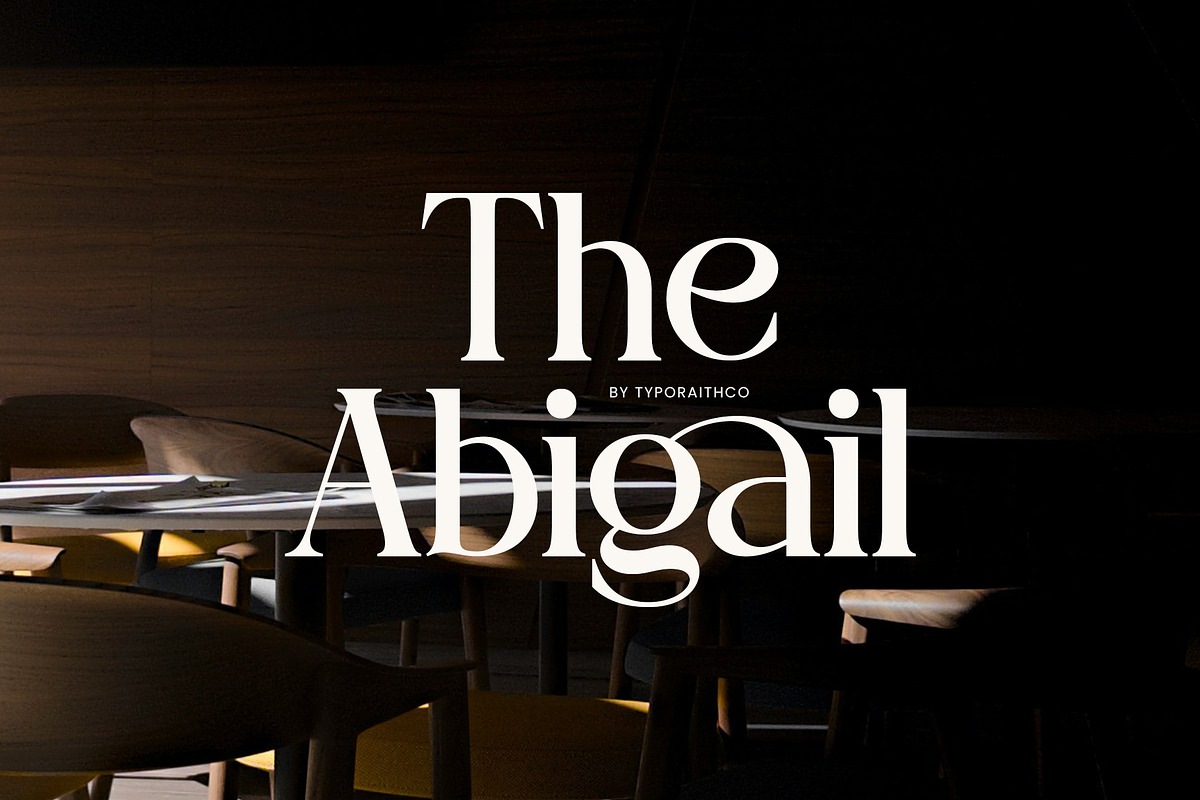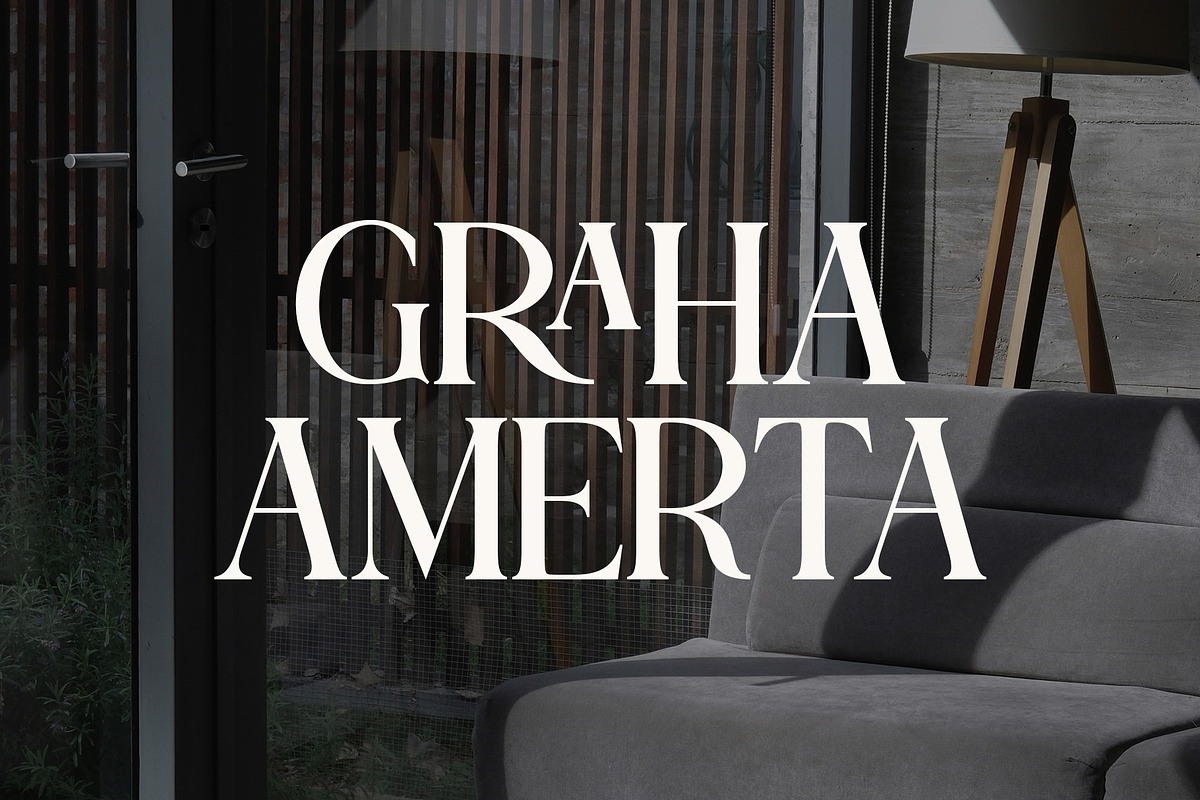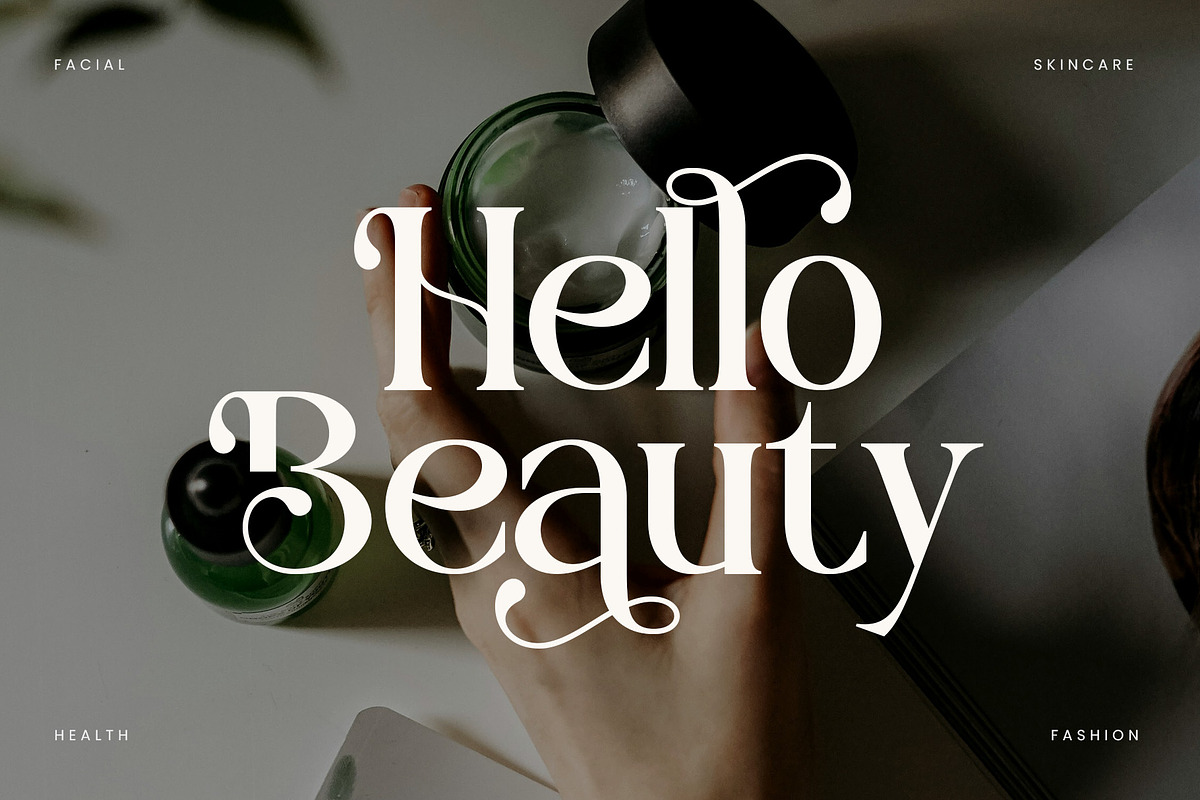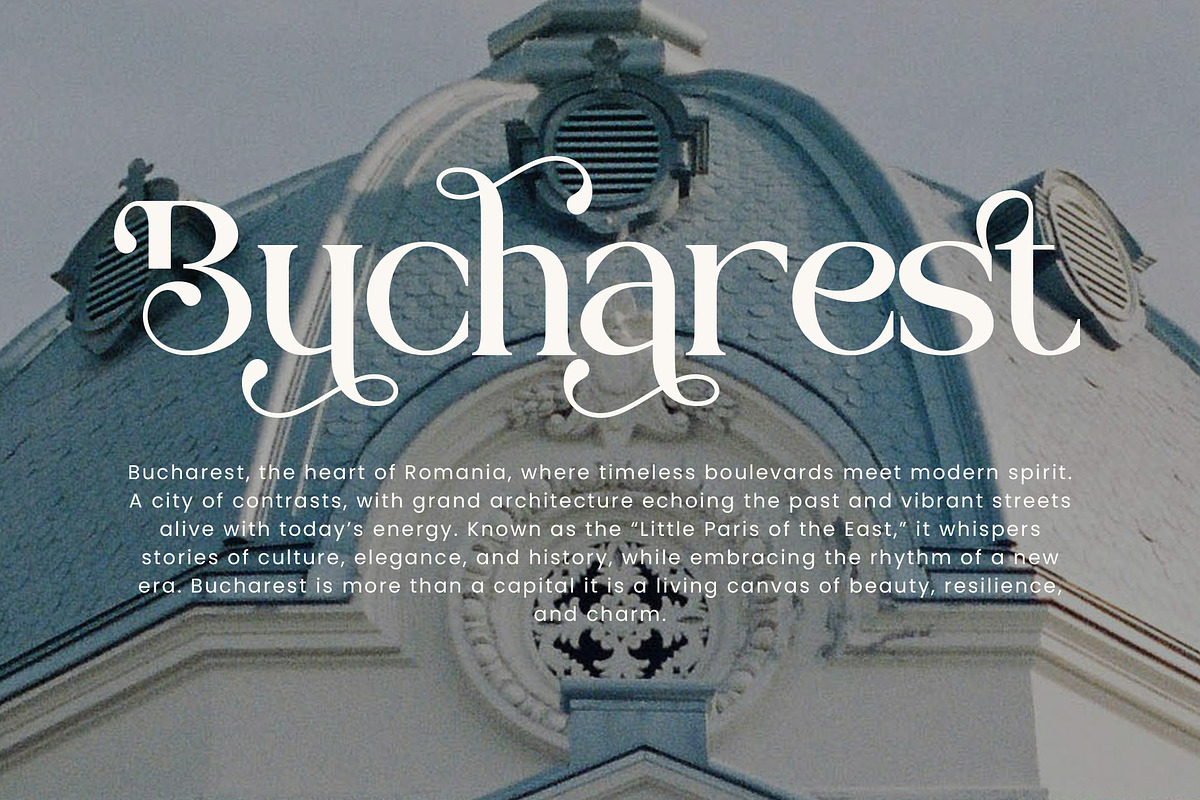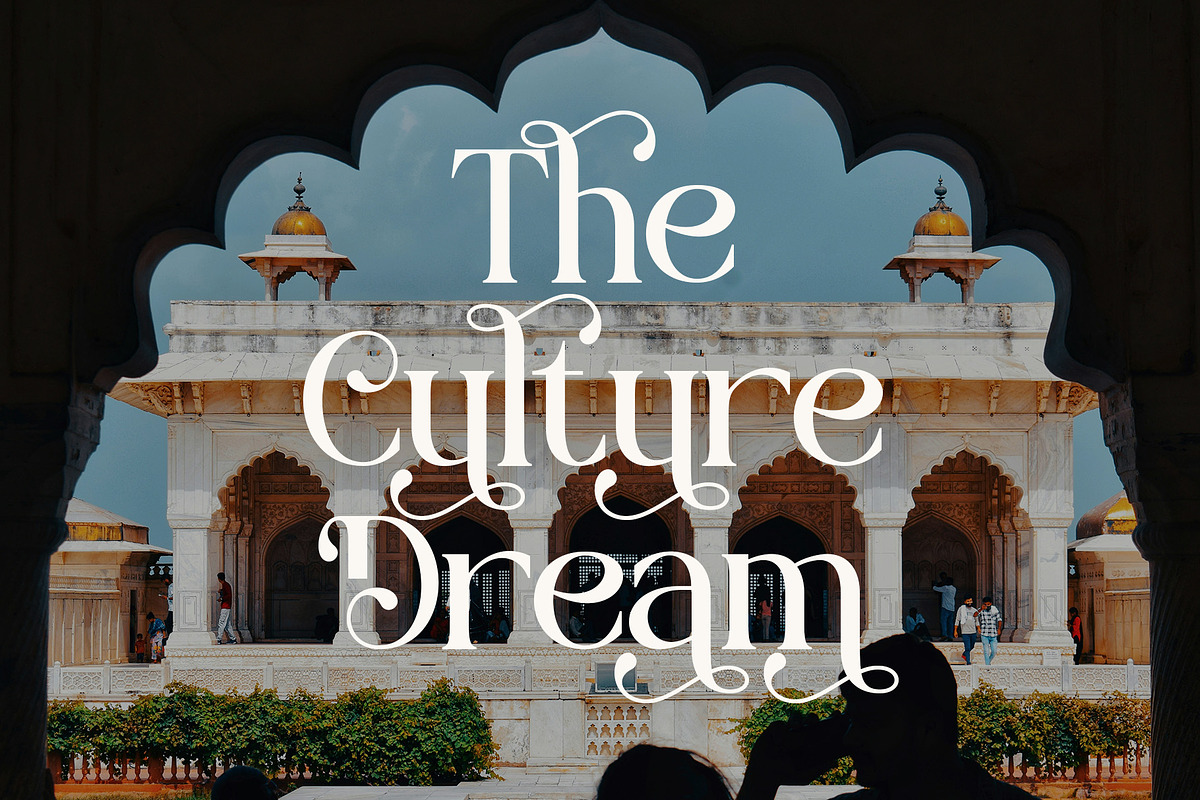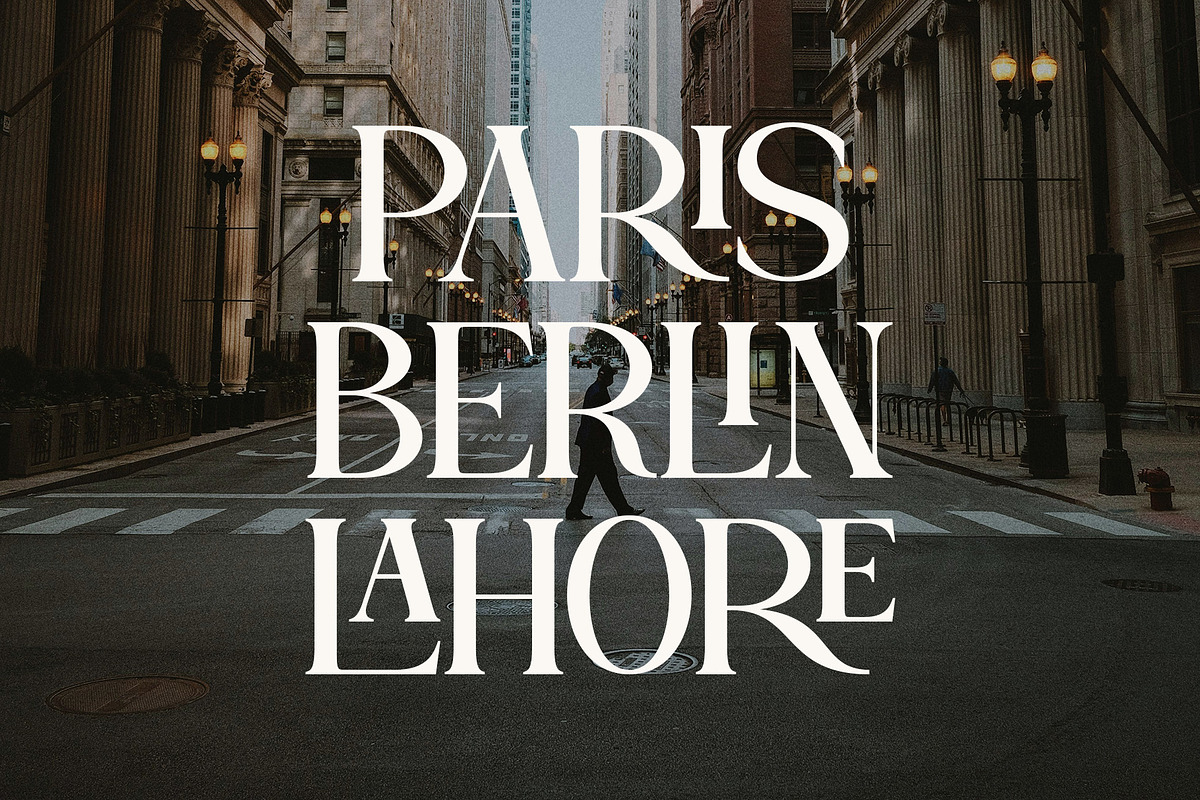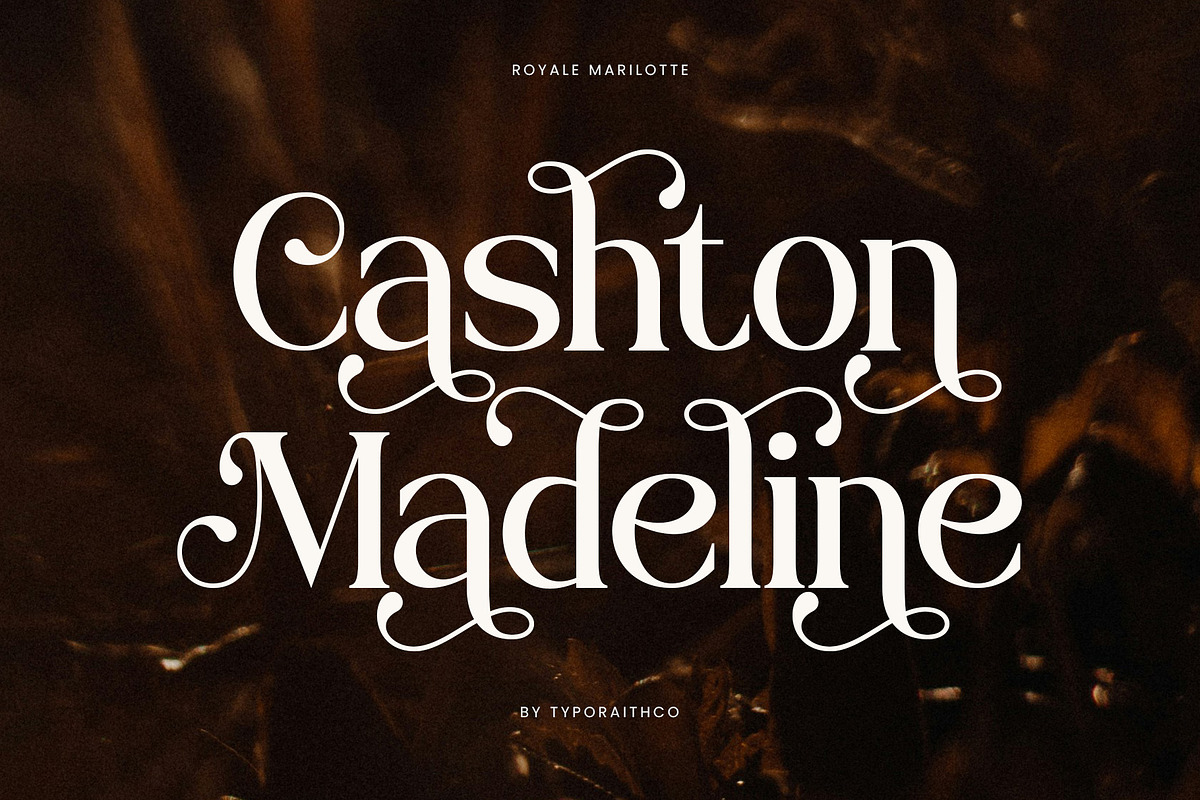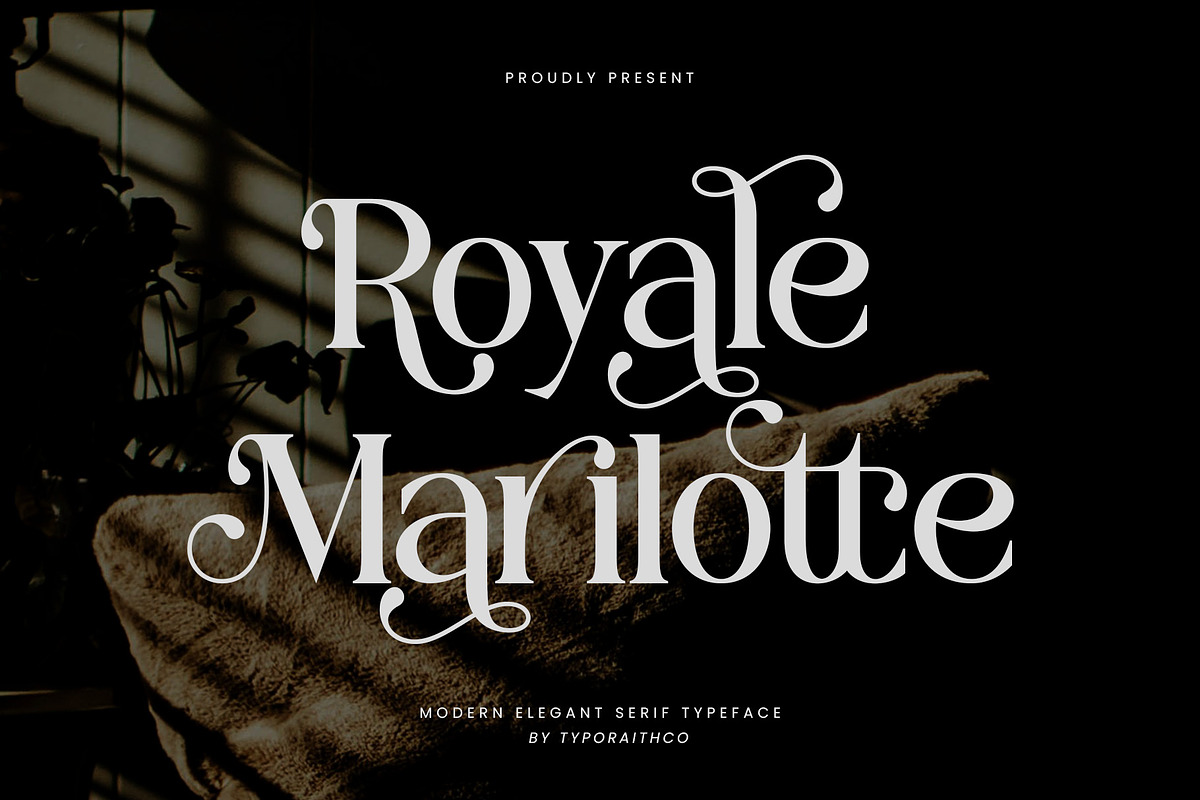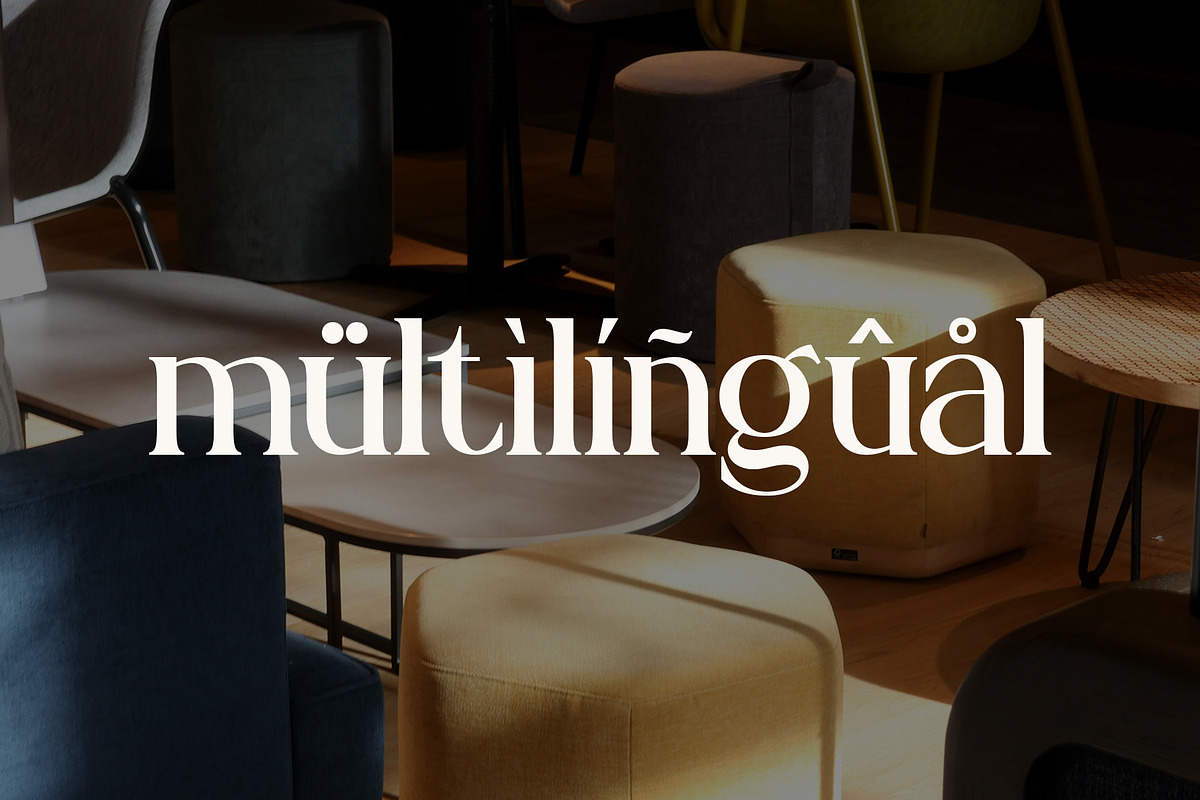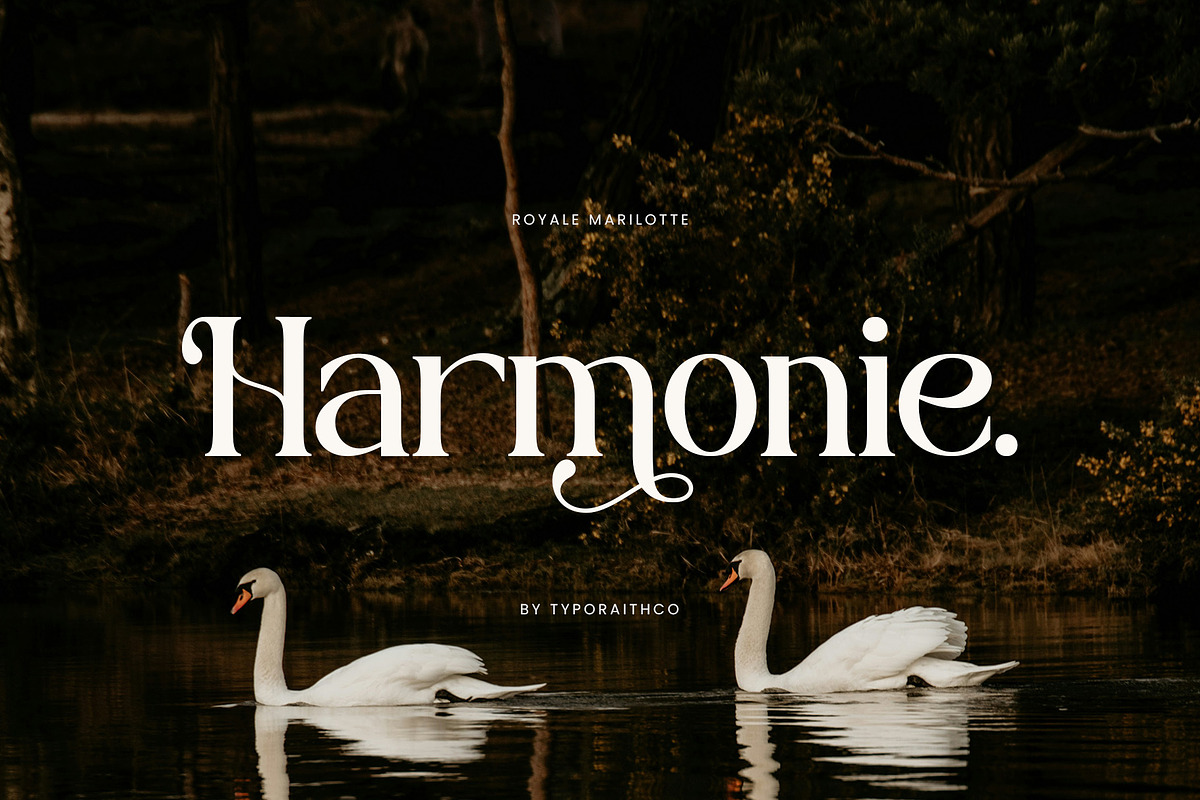
Royale Marilotte | Elegant Serif
Royale Marilotte is a modern elegant serif typeface that blends classic sophistication with contemporary style. Featuring graceful curves, stylish alternates, and refined ligatures, this font is designed to bring a luxurious and timeless touch to any design project.
Perfect for branding, logos, invitations, editorial design, packaging, and high-end fashion projects, Royale Marilotte offers versatility with its decorative swashes and elegant details. Whether you’re working on print or digital designs, this typeface ensures a striking and professional result.
Uppercase & lowercase
Elegant alternates and ligatures
Perfect for luxury branding, wedding invitations, magazines, and more
Bring elegance and modern charm to your creative projects with Royale Marilotte!